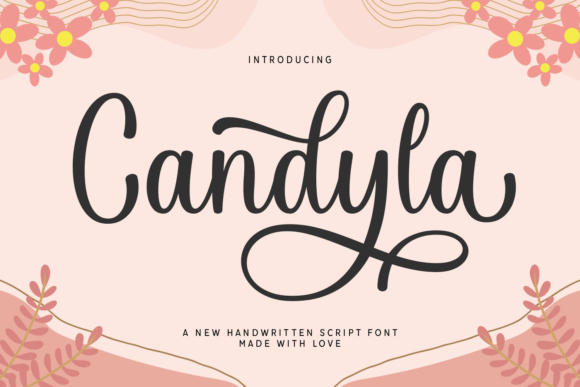
Candyla Font: Elevate Your Designs with Elegance and Flair
In the world of typography, fonts play a crucial role in conveying messages, expressing emotions, and creating a lasting impression. Among the numerous fonts available, Candyla Font stands out for its unique blend of elegance and artistic flair. This beautiful script font features elegant swashes, clean lines, and smooth curves, making it perfect for designers looking to add a stylish touch to their creations.
What is Candyla Font?
Candyla Font is a stunning script font that boasts elegant swashes, which give it a distinctive and artistic look. Its clean lines and smooth curves ensure that the font remains easy to read, making it suitable for a wide range of design projects. The swashes add a unique flair to the font, setting it apart from other script fonts and making it a great choice for designers seeking to create visually appealing designs.
Key Features of Candyla Font
- Elegant Swashes: The font features beautiful swashes that add an artistic touch to your designs.
- Clean Lines: The clean lines of Candyla Font ensure that it remains easy to read, even in large bodies of text.
- Smooth Curves: The smooth curves of the font give it a fluid and natural look, making it perfect for designs that require a touch of elegance.
- Unique and Artistic Flair: The swashes and elegant design of Candyla Font make it stand out from other script fonts, giving your designs a unique and artistic look.
Use Cases for Candyla Font
Candyla Font is versatile and can be used in a variety of design projects, including:
- Branding and Logo Design: The elegant and artistic design of Candyla Font makes it perfect for creating stunning logos and brand identities.
- Wedding and Event Invitations: The font’s elegant swashes and clean lines make it suitable for creating beautiful wedding and event invitations.
- Packaging Design: Candyla Font can be used to create eye-catching packaging designs that stand out on store shelves.
- Advertising and Marketing Materials: The font’s unique and artistic flair makes it perfect for creating visually appealing advertising and marketing materials.
Benefits of Using Candyla Font
Using Candyla Font in your designs offers several benefits, including:
- Enhanced Visual Appeal: The font’s elegant design and artistic swashes add a touch of sophistication to your designs, making them more visually appealing.
- Improved Readability: The clean lines and smooth curves of Candyla Font ensure that it remains easy to read, even in large bodies of text.
- Unique and Artistic Look: The font’s unique design and swashes give your designs a distinctive and artistic look, setting them apart from others.
- Versatility: Candyla Font can be used in a wide range of design projects, making it a great addition to your font library.
Tips for Using Candyla Font
To get the most out of Candyla Font, follow these tips:
- Use it Sparingly: Use Candyla Font sparingly to add a touch of elegance and sophistication to your designs.
- Pair it with Other Fonts: Pair Candyla Font with other fonts to create a unique and visually appealing design.
- Experiment with Swashes: Experiment with the font’s swashes to create a unique and artistic look.
- Consider the Context: Consider the context in which the font will be used and adjust the design accordingly.
In conclusion, Candyla Font is a beautiful script font that features elegant swashes, clean lines, and smooth curves. Its unique and artistic design makes it perfect for adding a stylish touch to your designs. With its versatility, readability, and visual appeal, Candyla Font is a great addition to any designer’s font library.